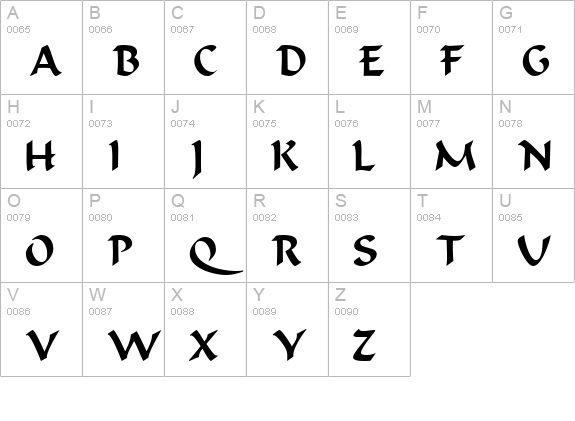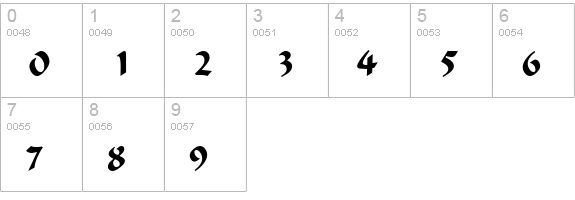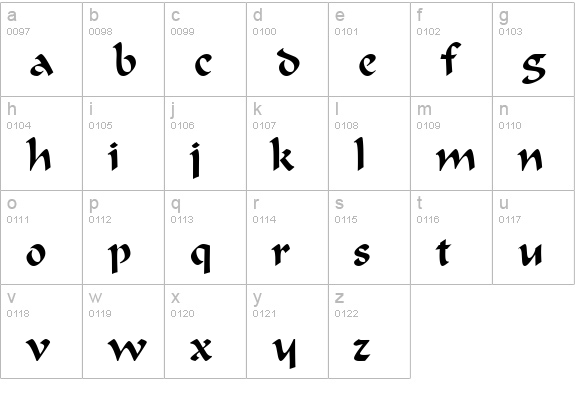
RococoSSK Font Details
RococoSSK is a delightful and ornate font that exudes elegance and sophistication. With its intricate swirls and curves, this font is perfect for adding a touch of luxury to any design project. The RococoSSK font is versatile and can be used for a variety of purposes, from invitations to branding to packaging. What makes RococoSSK even more appealing is that it is available for free download at FontsMarket.com. This means that you can easily access this beautiful font and incorporate it into your creative work without any cost. Whether you're a designer looking to elevate your projects or someone who simply appreciates the beauty of typography, RococoSSK is a must-have addition to your font collection. Enjoy the beauty and elegance of RococoSSK for free today!